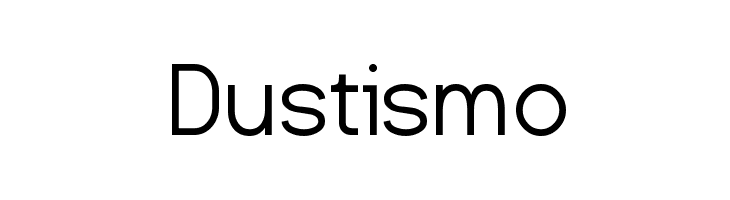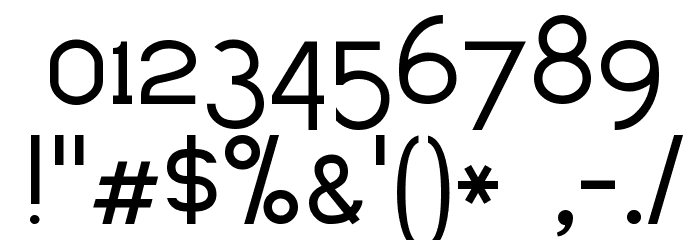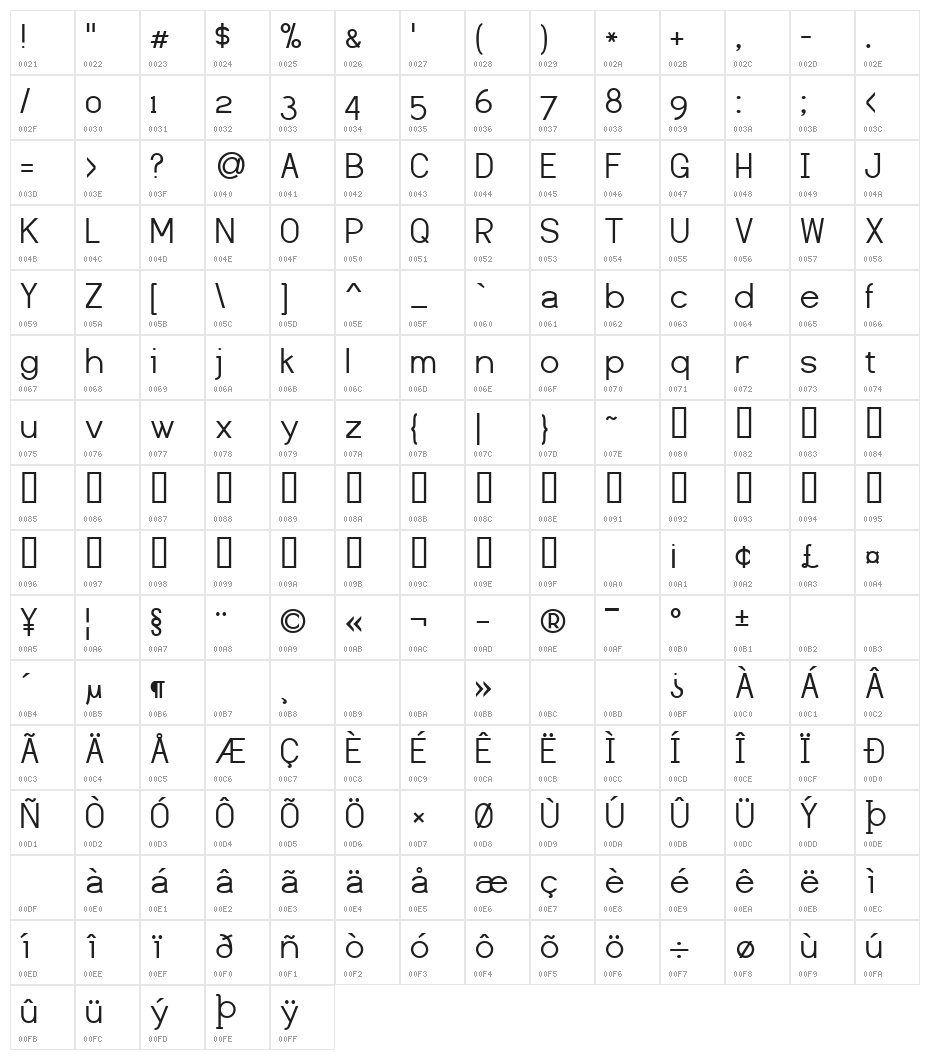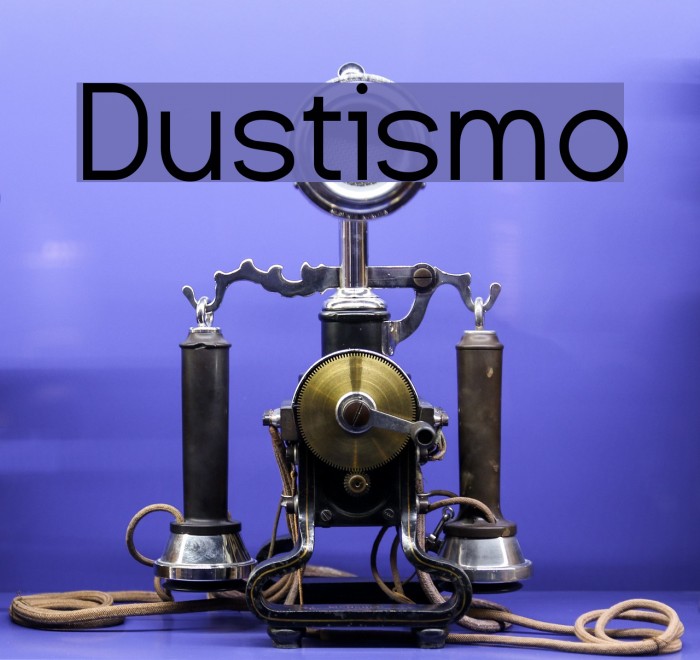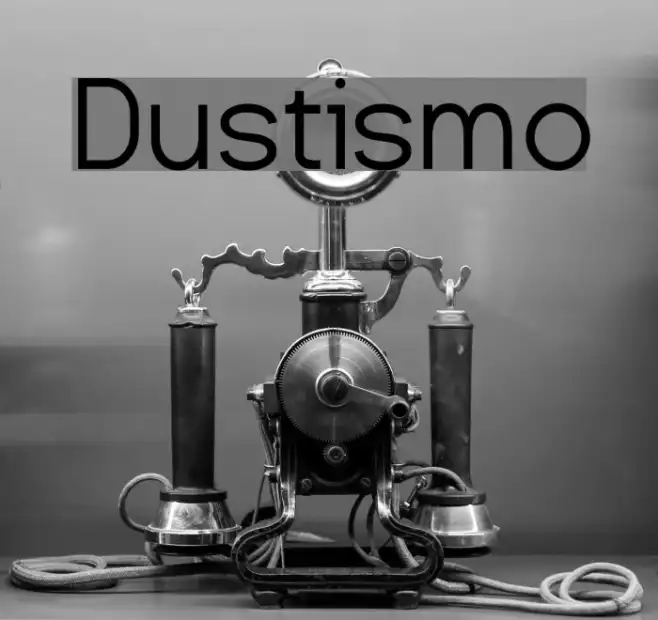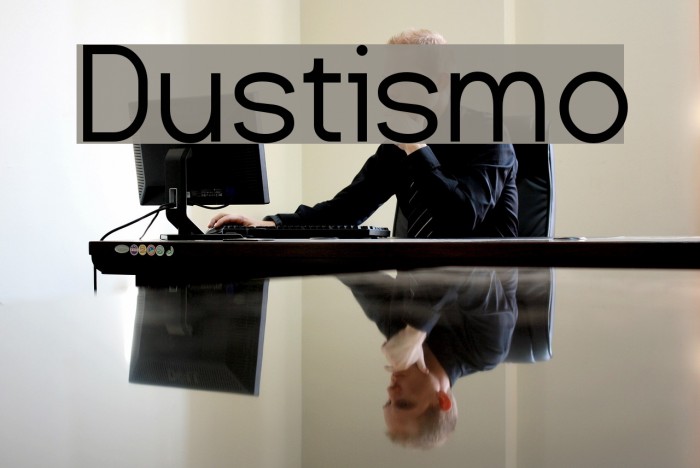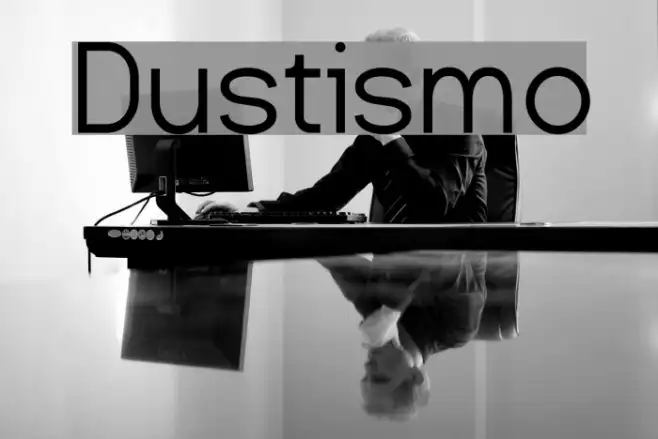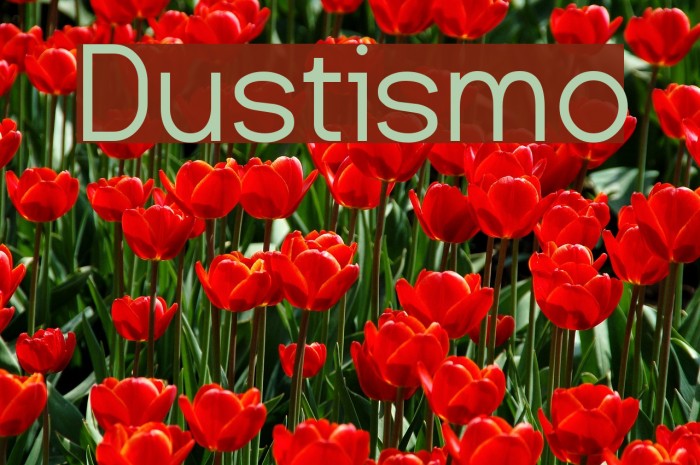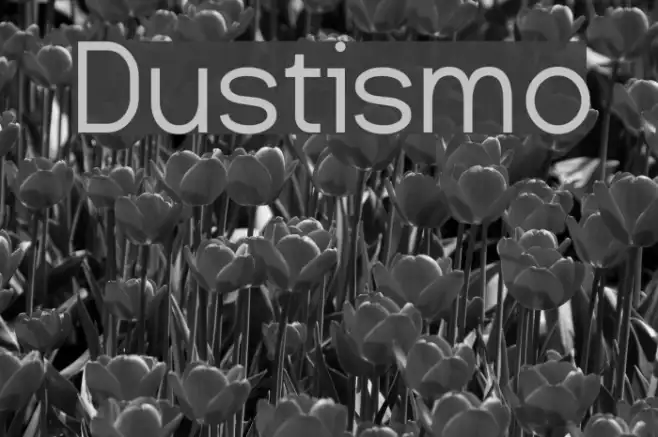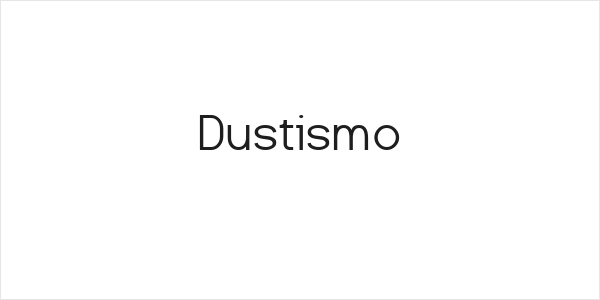
Dustismo Font
Dustismo Description
This typeface features a clean and modern sans-serif design, characterized by its geometric shapes and uniform stroke widths. The uppercase letters are bold and commanding, while the lowercase letters maintain a consistent and harmonious appearance. The numerals are clear and easily distinguishable, making them suitable for various applications. Special characters are well-integrated, providing a comprehensive set for diverse uses. The overall design is sleek and contemporary, making it versatile for both digital and print media.